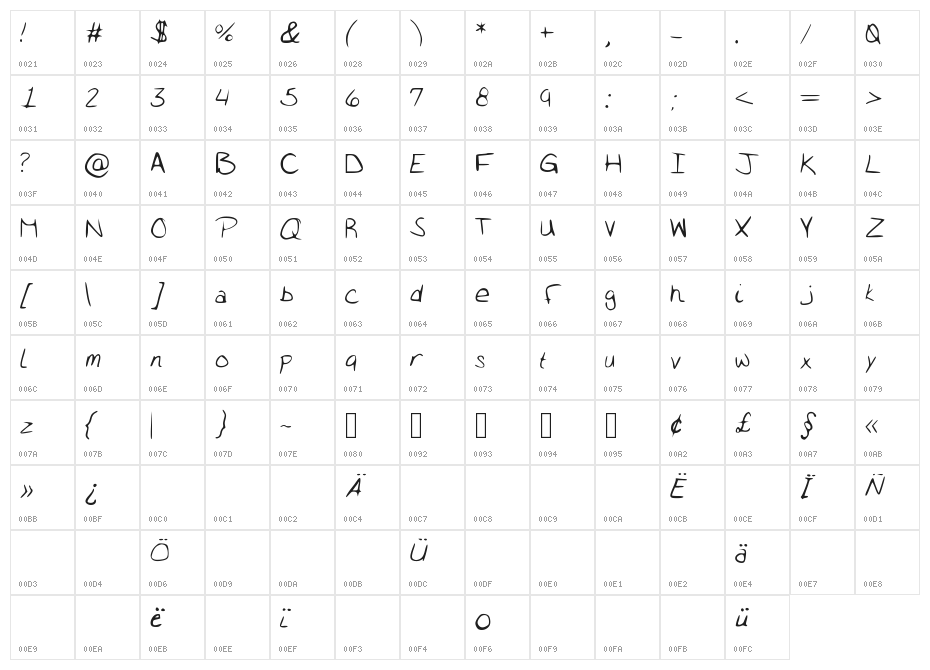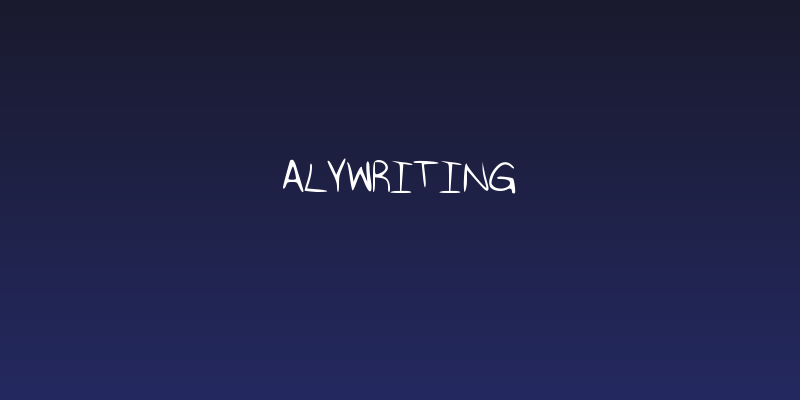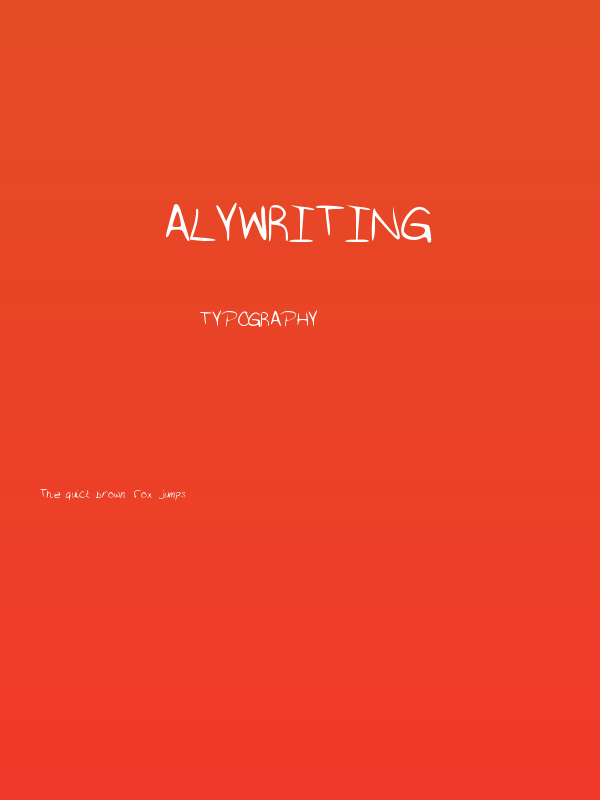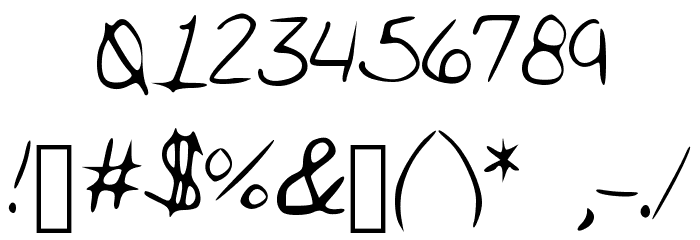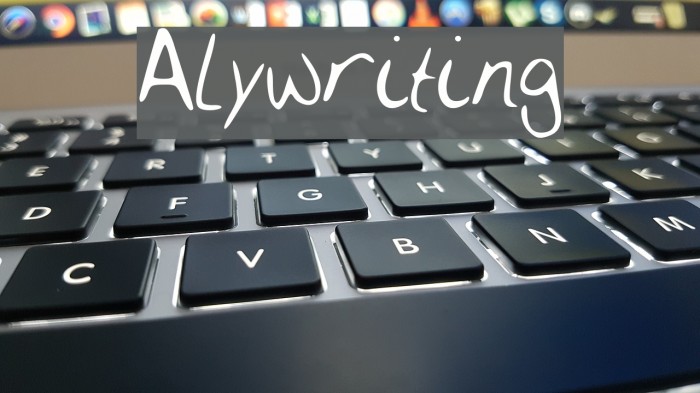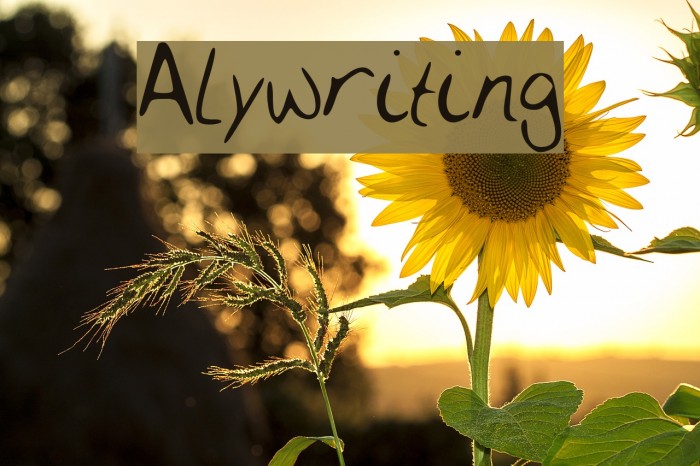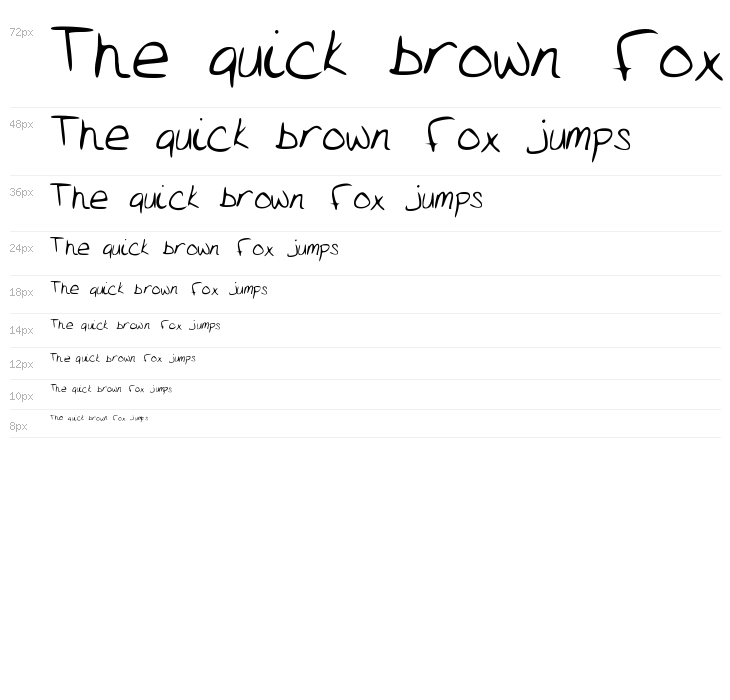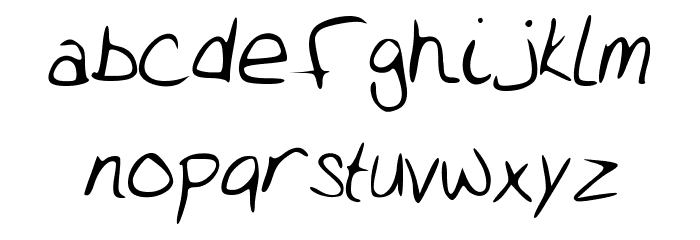
Alywriting Font
Alywriting Description
This font exudes a playful and casual handwritten style, characterized by its uneven strokes and organic flow. The letters have a natural, freeform appearance, with varying heights and widths that mimic authentic handwriting. The uppercase letters maintain a consistent baseline, while the lowercase letters exhibit a slight slant, adding to the informal aesthetic. The numerals and special characters follow the same whimsical style, ensuring a cohesive look across all text. This font's unique charm makes it ideal for projects that require a personal touch.
| Use Case | Headlines, Informal text, Personal projects |
| Proposed Projects | Greeting cards, personal invitations, children's books, and informal branding materials. |